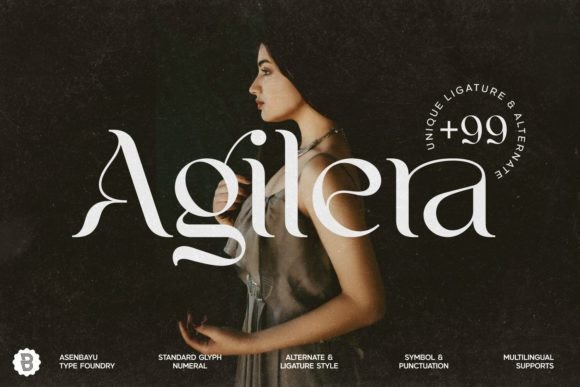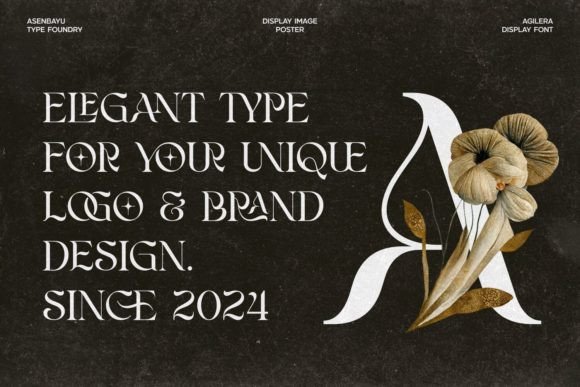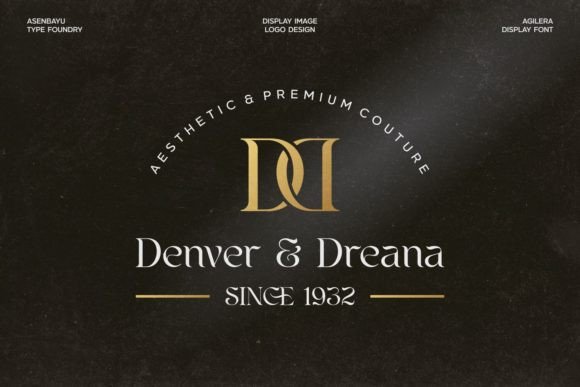
Agilera Font: Elegant Art Nouveau Ligature Font for Logo Design & Branding
About the Agilera Font
Unleash your creativity with Agilera Font, a versatile font perfect for a wide range of applications. Agilera is a unique and elegant ligature font. Influenced by the Art Nouveau style, the font incorporates flowing, organic lines and curves. The font exhibits high contrast between thick and thin strokes, which adds drama and a striking visual appeal. This gives a minimalist and stylish impression.This font is suitable for trendy packaging label designs, unique desired logos and branding, poster designs, fashion and many more.
Agilera’s strong visual impact makes it ideal for headlines, short text blocks on posters, and branding elements where a statement needs to be made. It excels in applications requiring a touch of Art Nouveau flair, such as logos for boutique businesses or packaging for high-end products. However, its high contrast and ornate details make it unsuitable for body text or UI elements; readability would suffer in long passages.
For a balanced design, pair Agilera with a clean sans-serif like Montserrat for body copy or a geometric sans-serif like Futura for a more modern feel. To soften its strong personality, consider pairing it with a script font like Great Vibes for a touch of whimsy or a neutral serif like Garamond for a more classic look.
Agilera projects a sophisticated, slightly dramatic personality, best suited for brands aiming for a high-end, artistic image. Avoid using it for projects requiring friendliness or approachability; its elegance leans toward the formal.
Agilera Font Usage Examples
Agilera Font Example